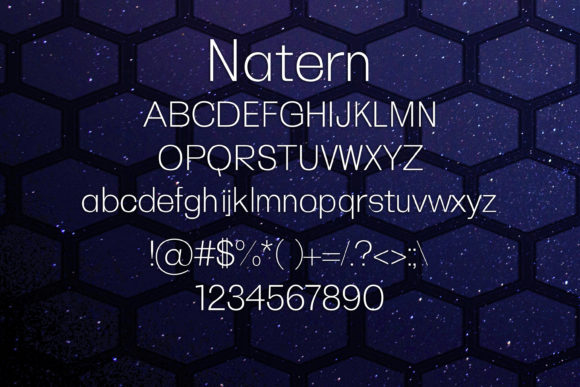
Introduction to Natern Font
Have you ever found yourself stuck in a creative rut, staring at a blank page with a deadline looming over you? For designers, this feeling is all too familiar. But sometimes, all it takes is the right design resource to spark inspiration and get those creative juices flowing again. For me, that resource is the Natern Font – a cool and modern sans serif font with a bold style that never fails to get me excited about a new project.
The Natern Font is more than just a pretty face, though. Its high-quality design and versatility make it a valuable asset for any creative project, from logo design to digital interfaces. And the best part? It’s available for free download, making it accessible to designers of all levels. Whether you’re working on a personal project or collaborating with a team, the Natern Font is sure to be a hit.
Key Features of Natern Font
- Unique, modern font style with a transparent background
- Perfect for graphic designers, digital artists, and anyone looking for a versatile font for their creative projects
Honest Review: Natern Font
I recently had the chance to work with the Natern Font, and I must say it’s been a game-changer for my design projects. This high quality font is perfect for creating unique and captivating designs that stand out from the crowd.
One of the things I love about the Natern Font is its transparent background, which makes it super easy to customize and integrate with any design resource. Whether I’m working on a logo, branding, or creative project, this font is always a great choice.
Here are some of the things that work well with the Natern Font:
- High quality design that looks great in print and digital formats
However, I did encounter a few limitations while working with the Natern Font:
- Some characters may not be available in certain font sizes or styles
- May not be suitable for use in certain creative project formats, such as signage or large-scale displays
Overall, I’m really impressed with the Natern Font and would highly recommend it to fellow designers. It’s a valuable resource that can help take your designs to the next level.
Natern Font
The Natern Font is a high-quality design resource ideal for creative projects requiring a unique and stylish touch. With a transparent background, this font is perfect for adding depth and visual interest to your designs.
For the most out of the Natern Font, use it in combination with other design elements to create a cohesive and visually appealing design. Common use cases include:
The Natern Font is available for free download, making it a valuable resource for designers and creatives on a budget. With its high-quality design and transparent background, the Natern Font is sure to elevate your creative project to the next level.
Alternatives to Natern Font
Ostrich Sans is a free, open-source sans-serif font with a transparent background, making it suitable for use on any design resource, including logos, icons, and UI elements. It’s an excellent alternative to Natern Font for projects that require a clean and minimalist aesthetic, such as app interfaces, websites, and editorial designs.
Pacifico is a beautiful, high-quality script font with a elegant and sophisticated style. It’s ideal for creative projects, such as branding, advertising, and editorial designs, where a touch of luxury and sophistication is required. Compared to Natern Font, Pacifico offers a more refined and polished appearance, making it perfect for high-end design projects.
Does the Natern Font support transparent background?
Yes, the Natern Font supports transparent background, making it ideal for designs that require a high level of customization and flexibility. You can use it in combination with a transparent background image or other design elements to create a unique and eye-catching visual effect.